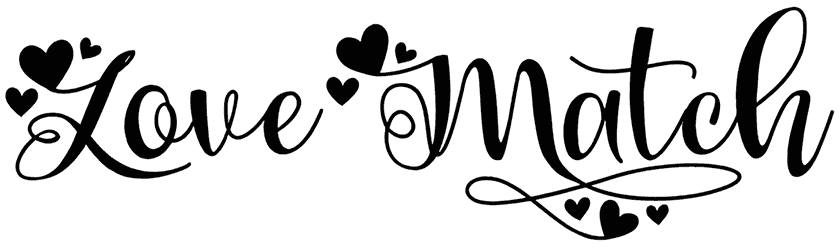
Love Match Font
Choose a facing for your romantic project that is in a match its mood, like Love Match with a lovely and impressive vibe. This decorative font will be perfect for many happy themes with twisted letterforms and lots of tiny hearts around the uppercase. Let Love Match show off in your coming designs like flyers, covers, backgrounds, and sundries, and it brings all the attention.